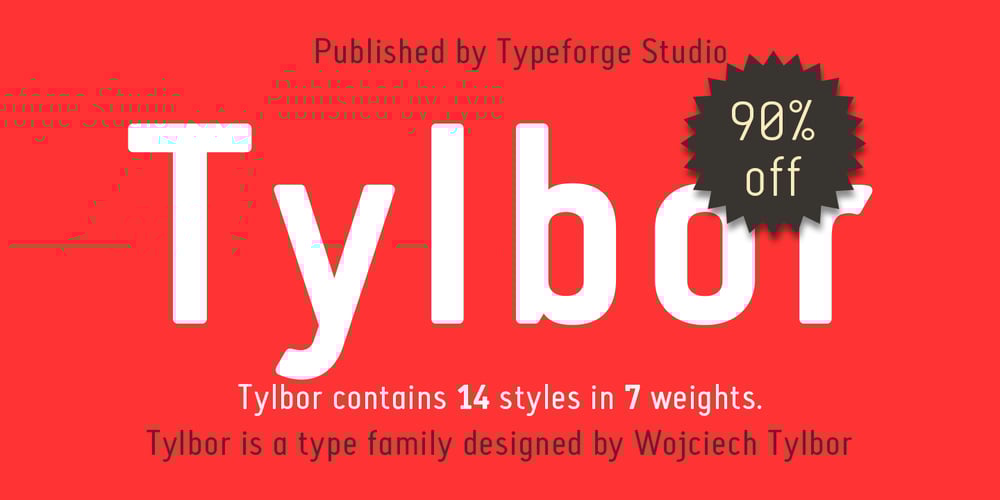
Tylbor
Tylbor font
Tylbor Font Family was designed by Wojciech Tylbor and published by Typoforge Studio. Tylbor contains 14 styles and family package options. Tylbor was inspired by vernacular German typography but mostly by handwritten signs found on the archive photographs from the late 40s of the 20th century. Tylbor contains 14 styles in 7 weights.